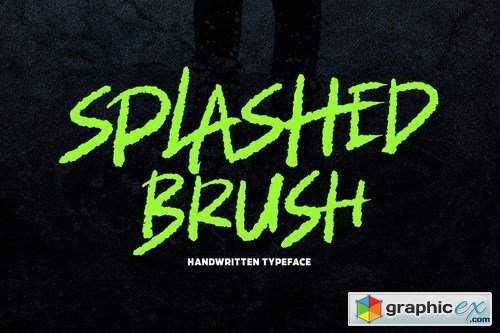
Splashed Brush Font
Splashed is a handwritten brush font with dynamic movement. Comes in 400+ glyphs. Splashed perfect for a headline, branding, advertising, and many more.